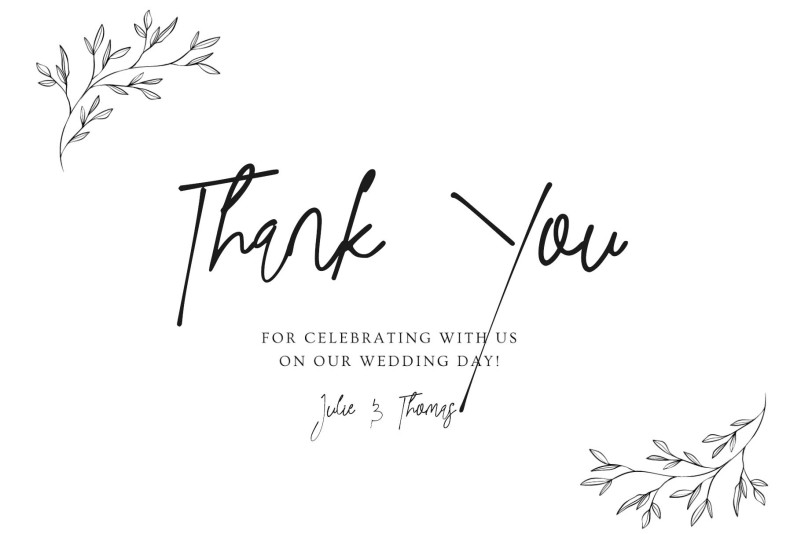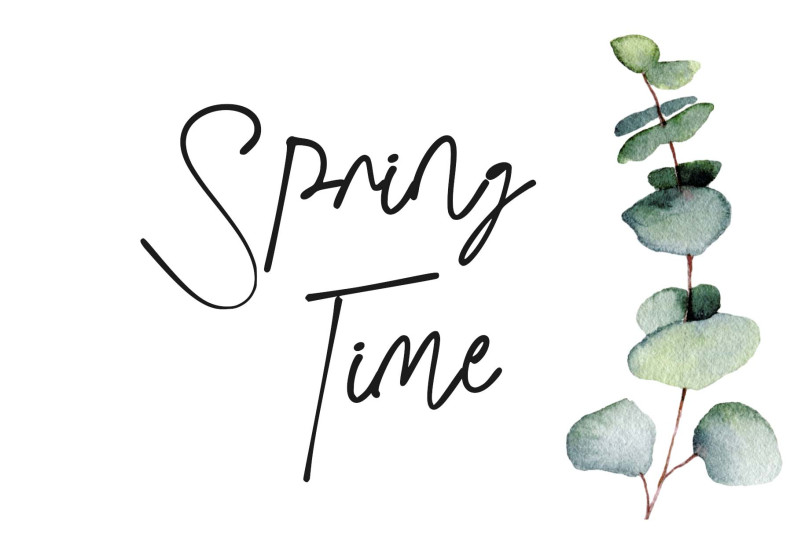
Black Article Font
Black Article Font is a very elegant and beautiful signature font. This font is very easy to use because it has been specially designed. Equipped with uppercase, lowercase, numerals, punctuation, and multilingual support. It is suitable for weddings, invitations, movie titles, book titles, logos, stickers, and more.